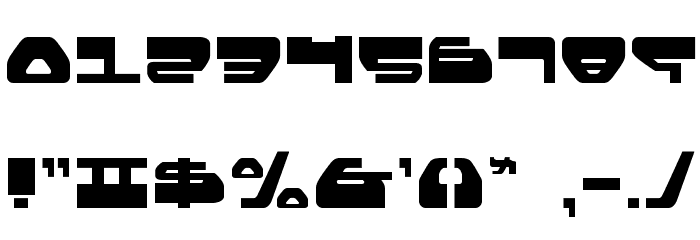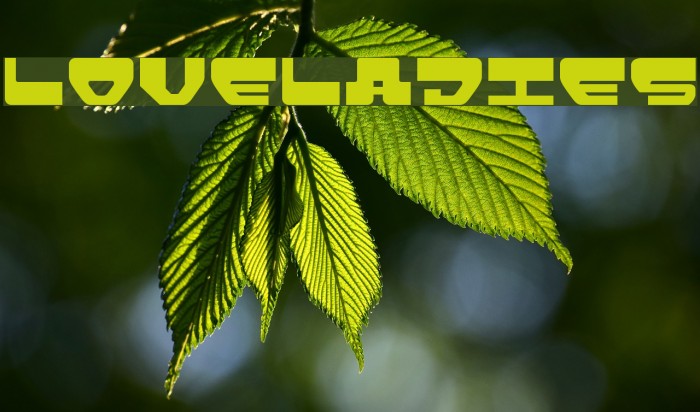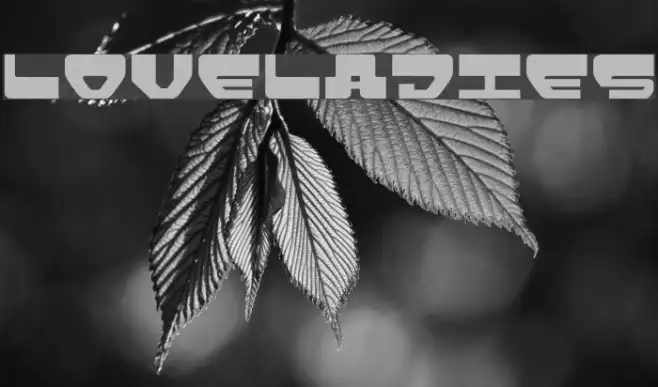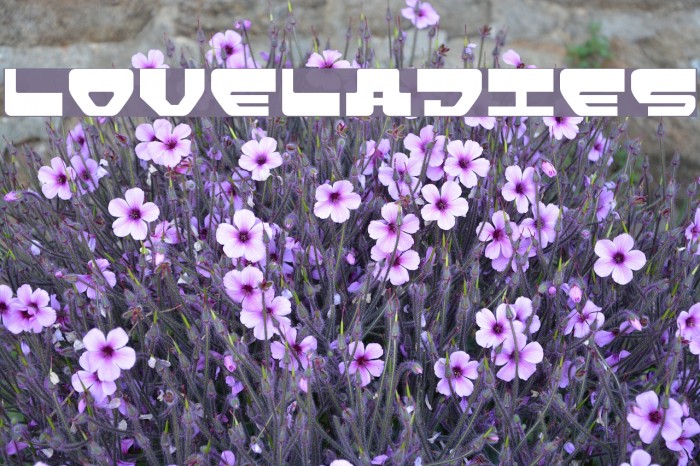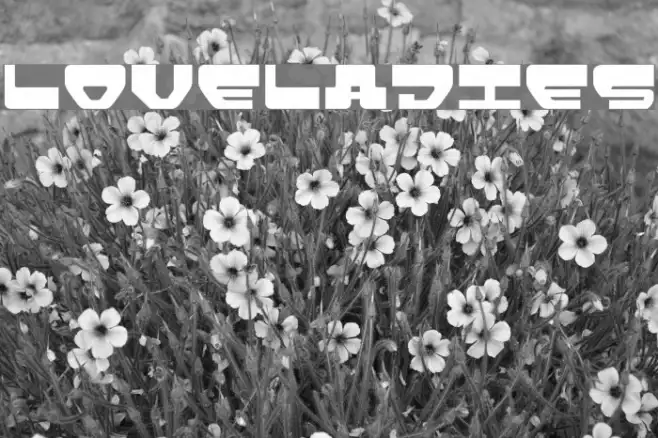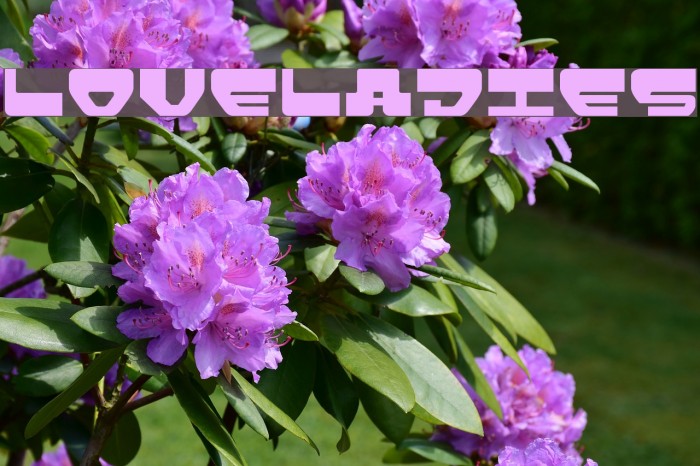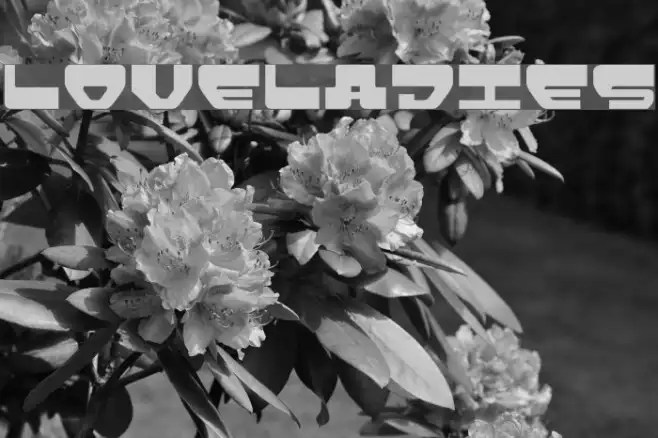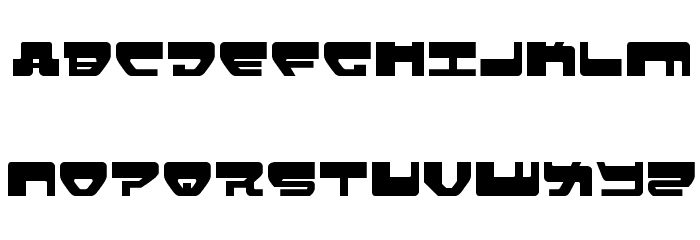
Loveladies Font
This font features a bold, futuristic design with geometric shapes and sharp angles. The characters are constructed with a blocky, solid appearance, giving them a strong and impactful presence. The uppercase and lowercase letters maintain a consistent style, with unique cutouts and angular forms that create a sense of movement and modernity. The numerals and special characters follow the same design principles, ensuring a cohesive look across all elements. This font's distinctive style makes it ideal for projects that require a modern and edgy aesthetic.
• Proposed Projects: Ideal for sci-fi themed designs, video game graphics, posters, and branding that requires a modern, edgy look.
• Category: Decorative/Display
• Bold: Yes
• Italic: No
• Weight: Bold
• Width: Normal
• Character Spacing: Normal
• Contrast: Low
• Overall Style: Modern
• Use Case: Headlines, Logos, Posters